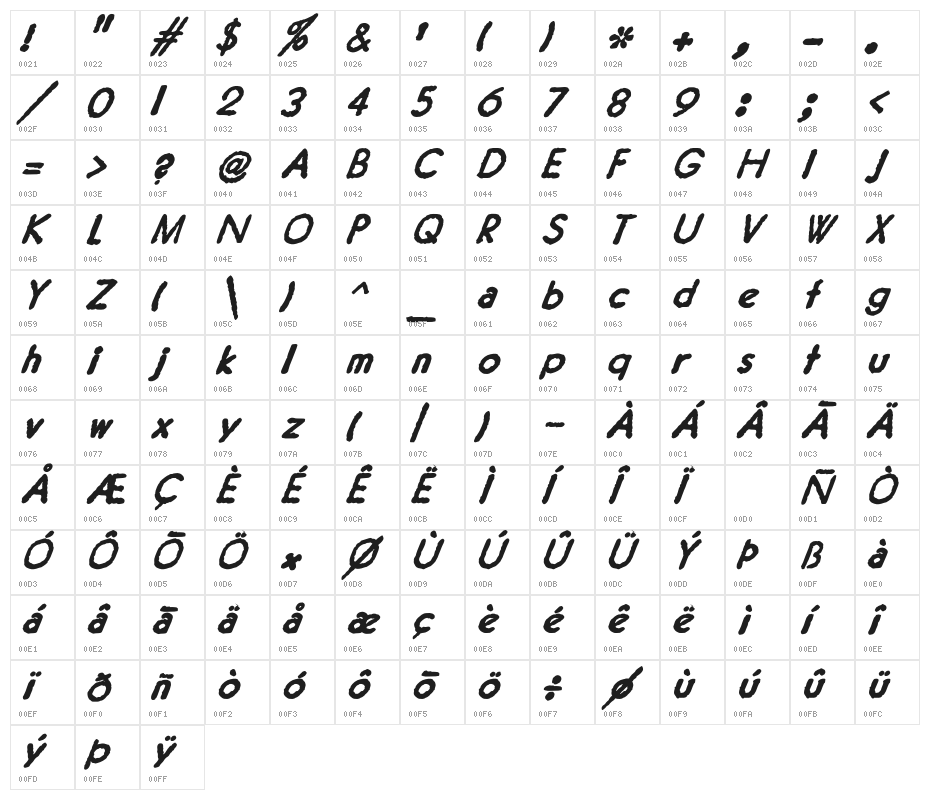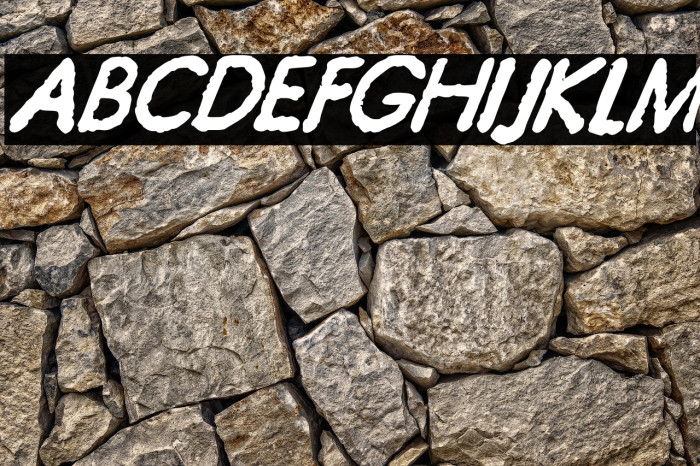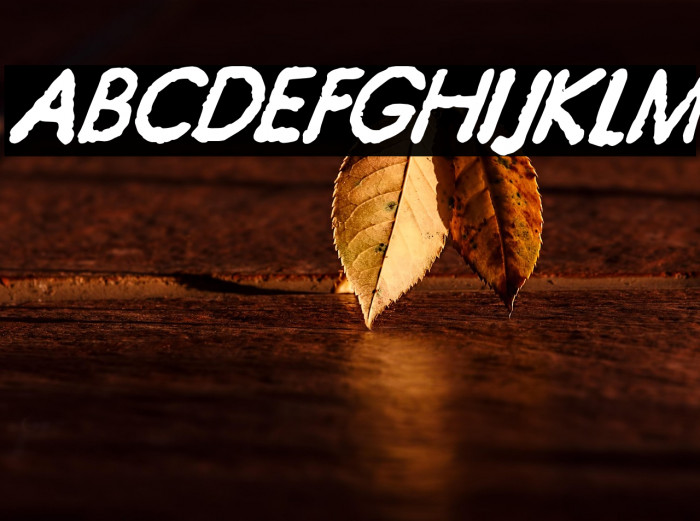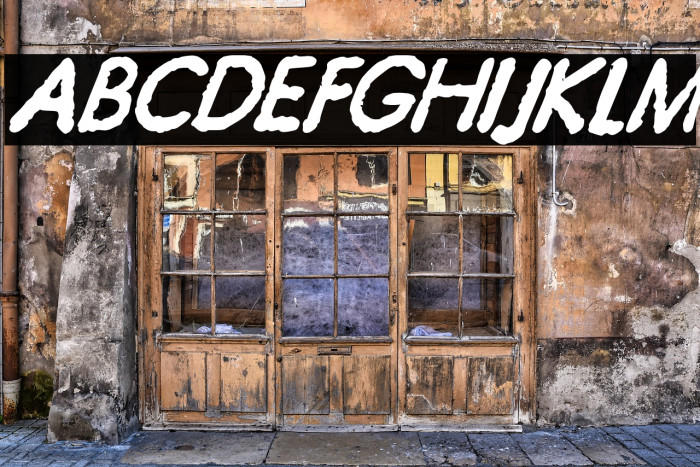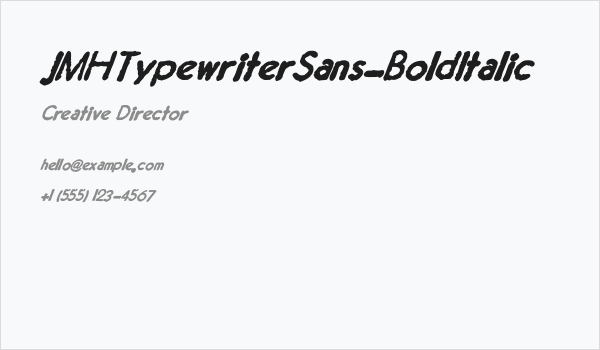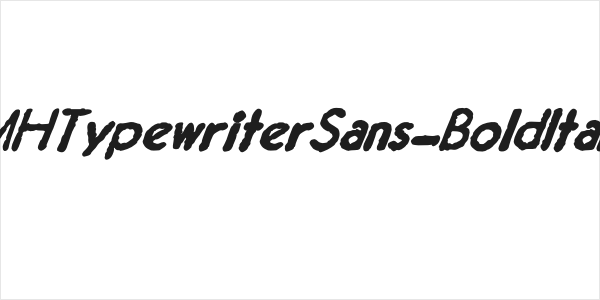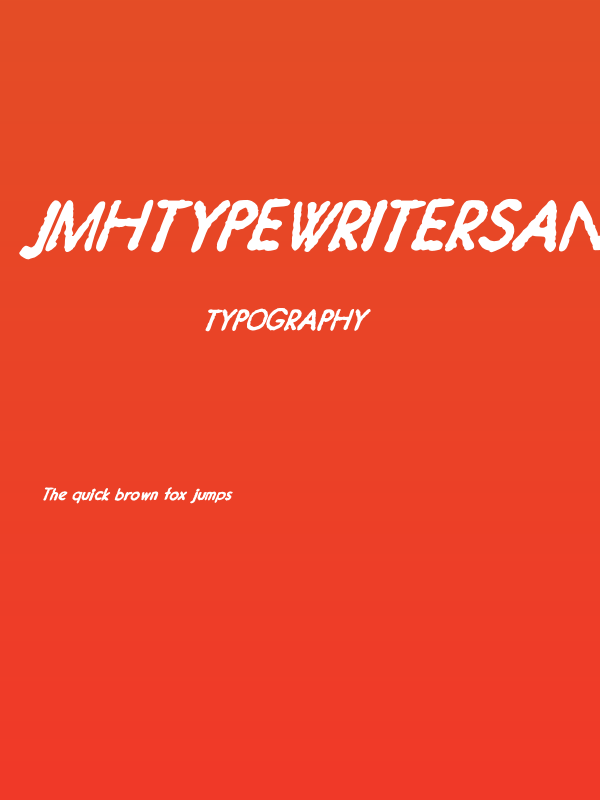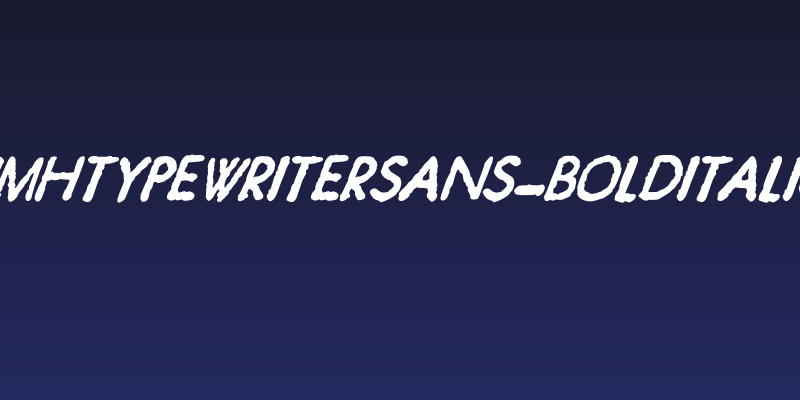
JMHTypewriterSans-BoldItalic Font
JMHTypewriterSans-BoldItalic Description
This font exhibits a bold and italicized style with a distinct handwritten appearance. The characters are thick and rounded, giving a strong presence on the page. The uppercase and lowercase letters maintain a consistent style, with a slight slant that adds to the dynamic feel. The numerals and special characters follow the same bold and italicized design, ensuring uniformity across all elements. The strokes are consistent in their thickness, providing a cohesive look throughout. This font's boldness and slant make it suitable for attention-grabbing headlines or creative projects.